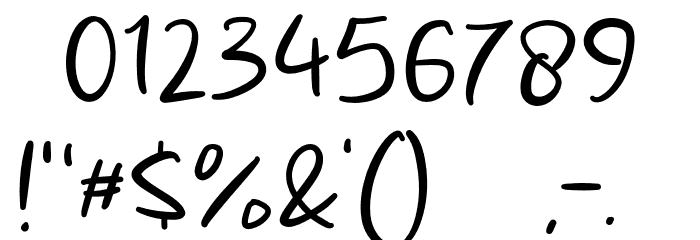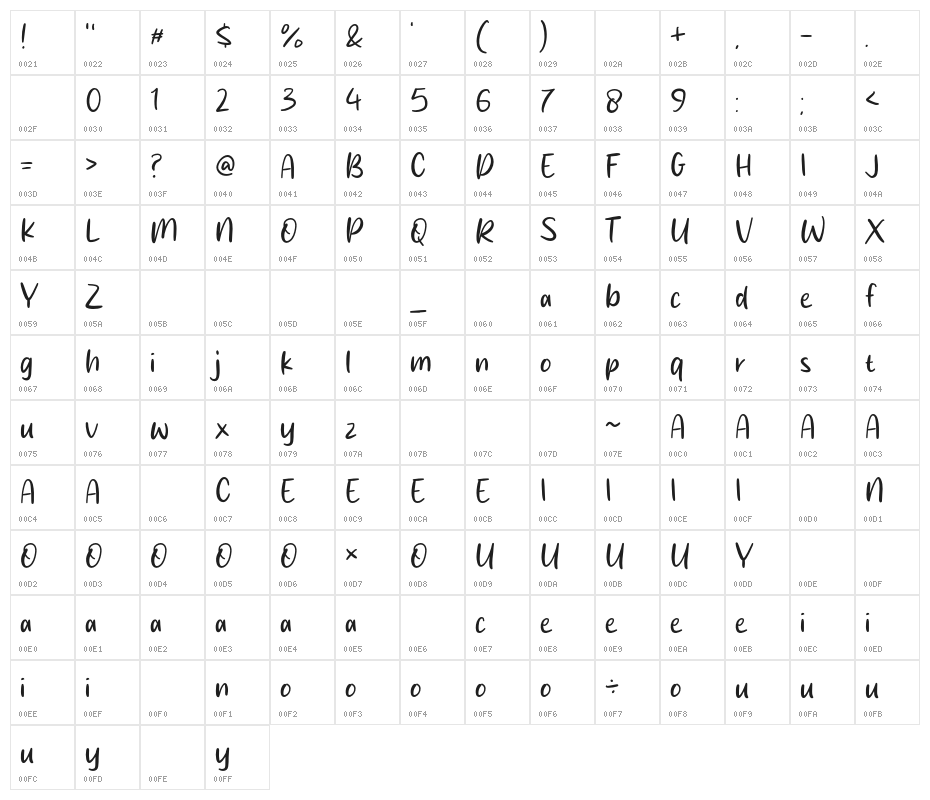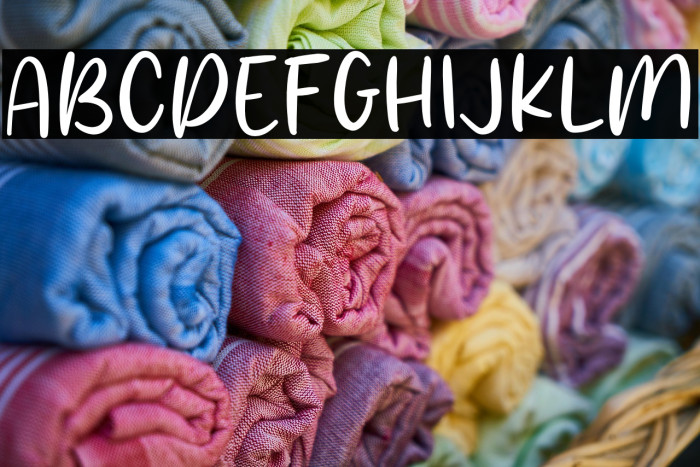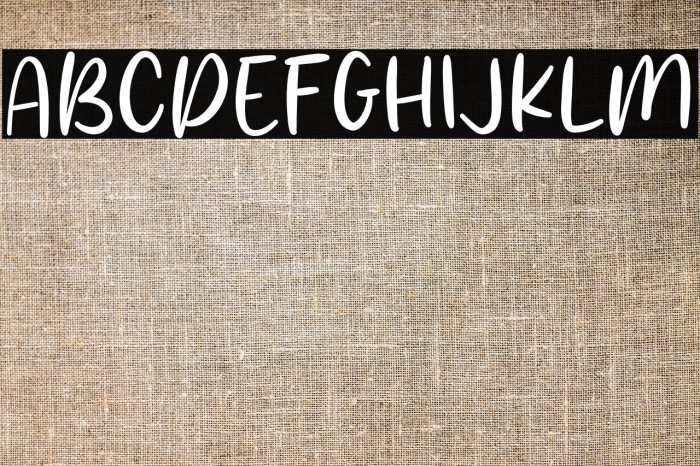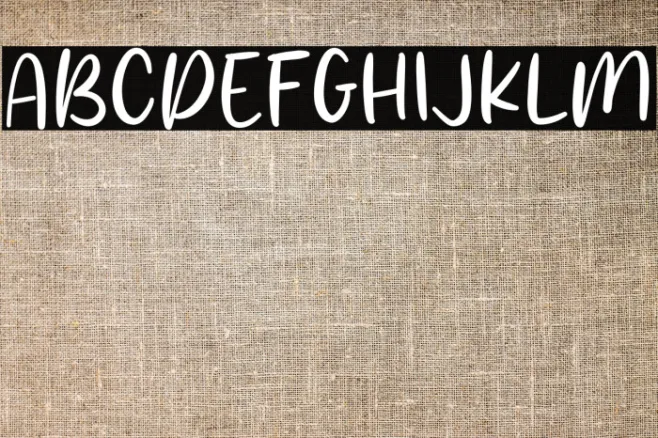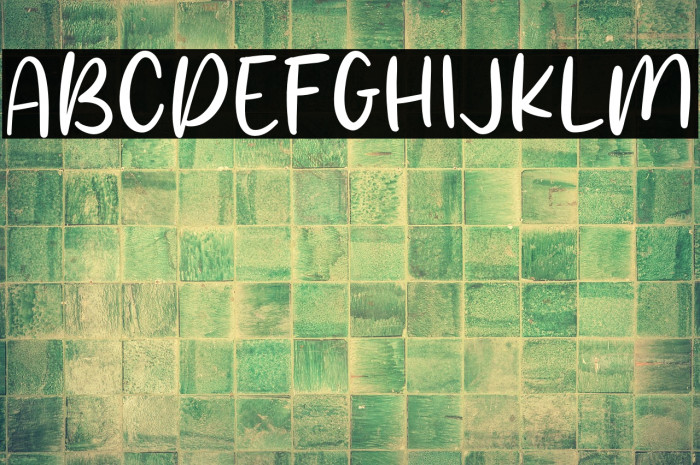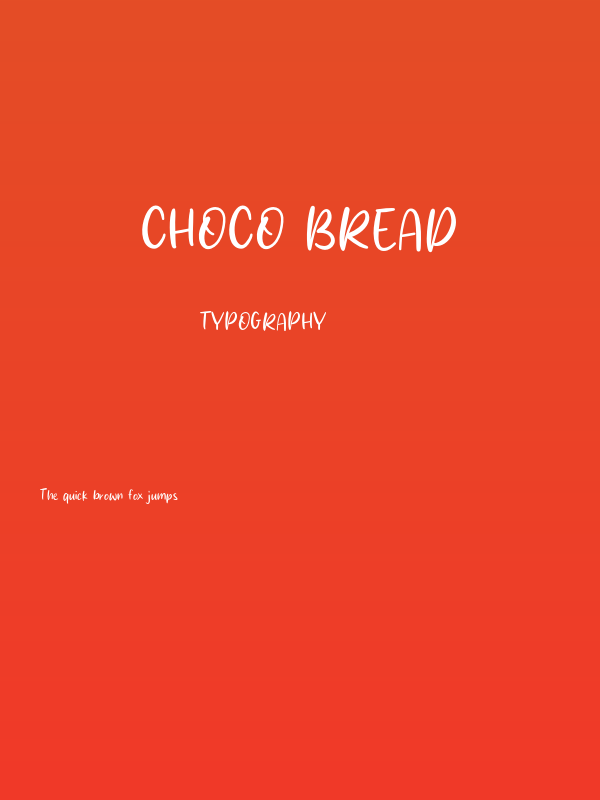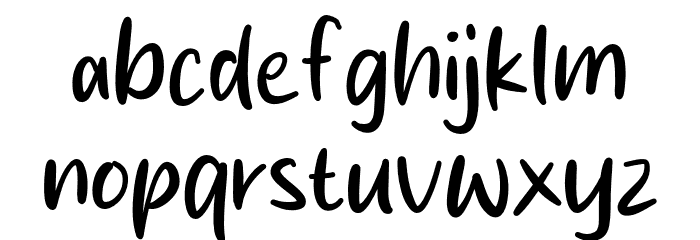
Choco Bread Font
Choco Bread Description
This font exudes a playful and casual handwritten style, characterized by its smooth, flowing curves and slightly irregular letterforms. The strokes are consistent in thickness, giving it a harmonious and cohesive appearance. The uppercase and lowercase letters maintain a friendly and approachable feel, making it suitable for informal and creative projects. The numerals and special characters are designed to complement the overall style, ensuring readability and aesthetic balance. Its informal nature makes it ideal for projects that require a personal touch.
| Use Case | Logos, Invitations, Social Media Graphics |
| Proposed Projects | Greeting cards, children's books, personal blogs, and creative branding projects. |